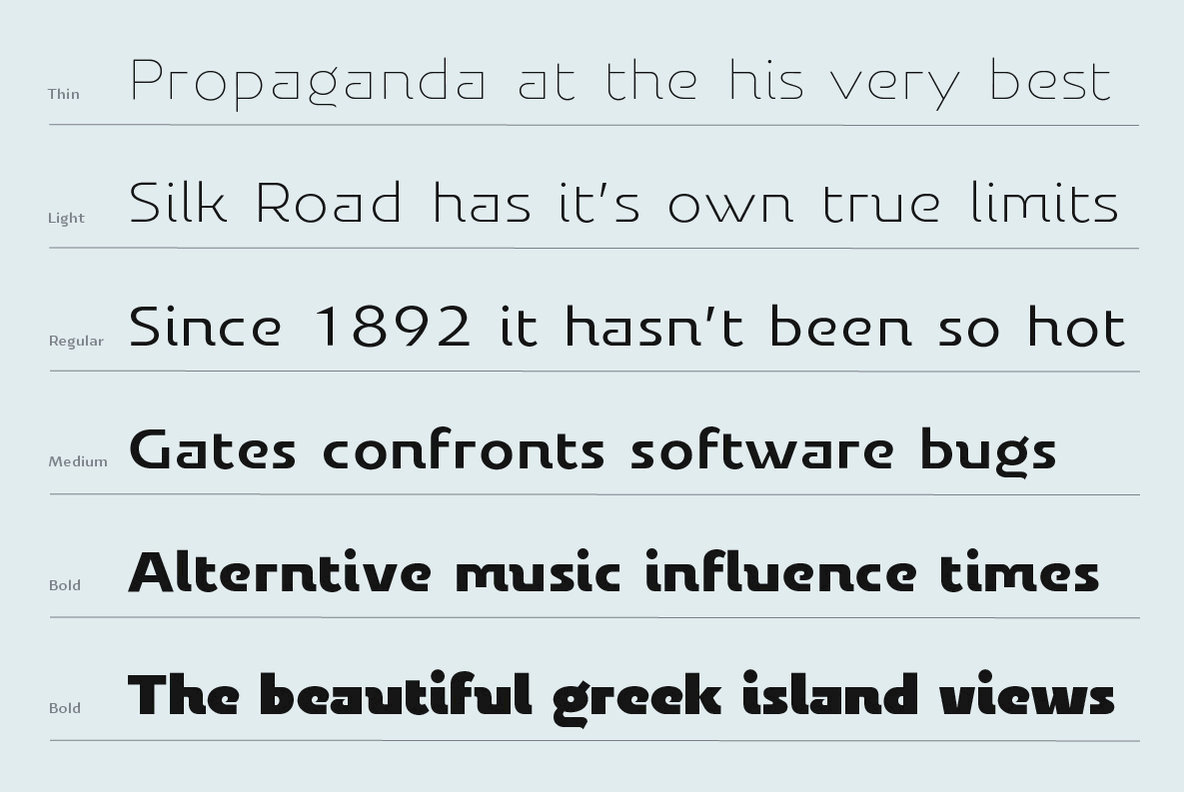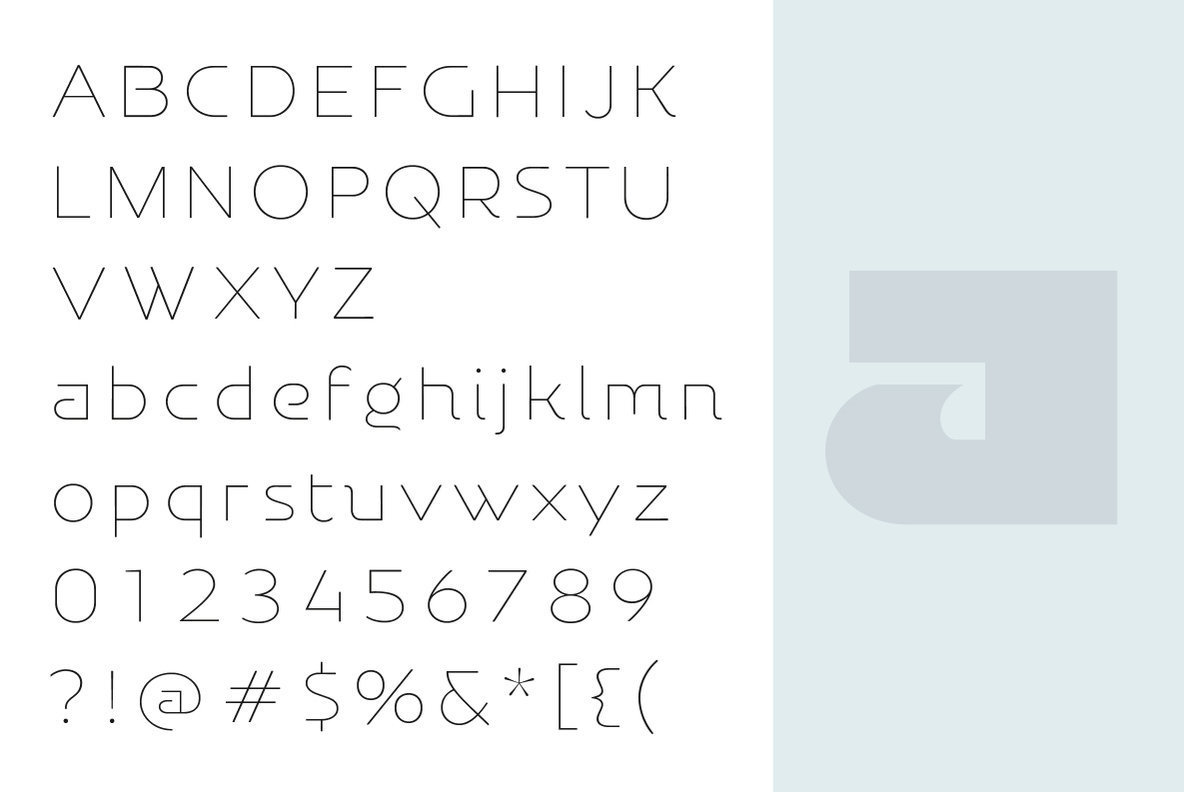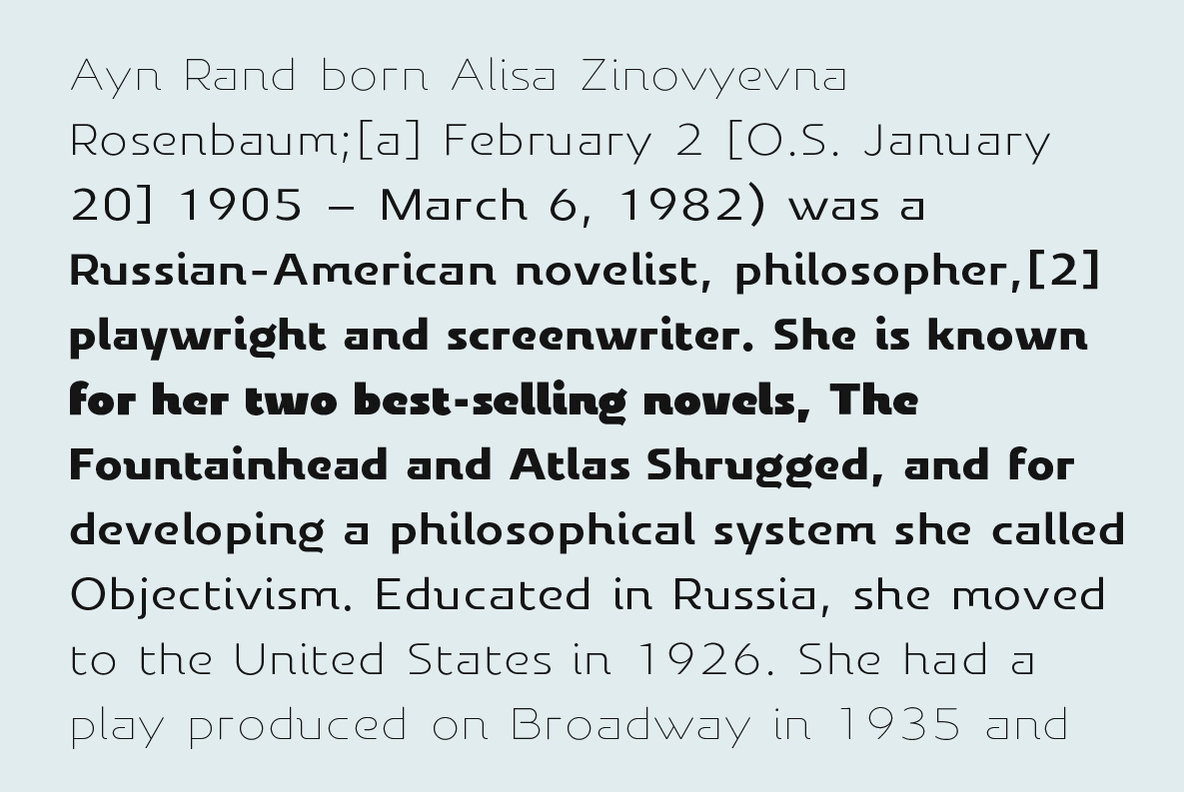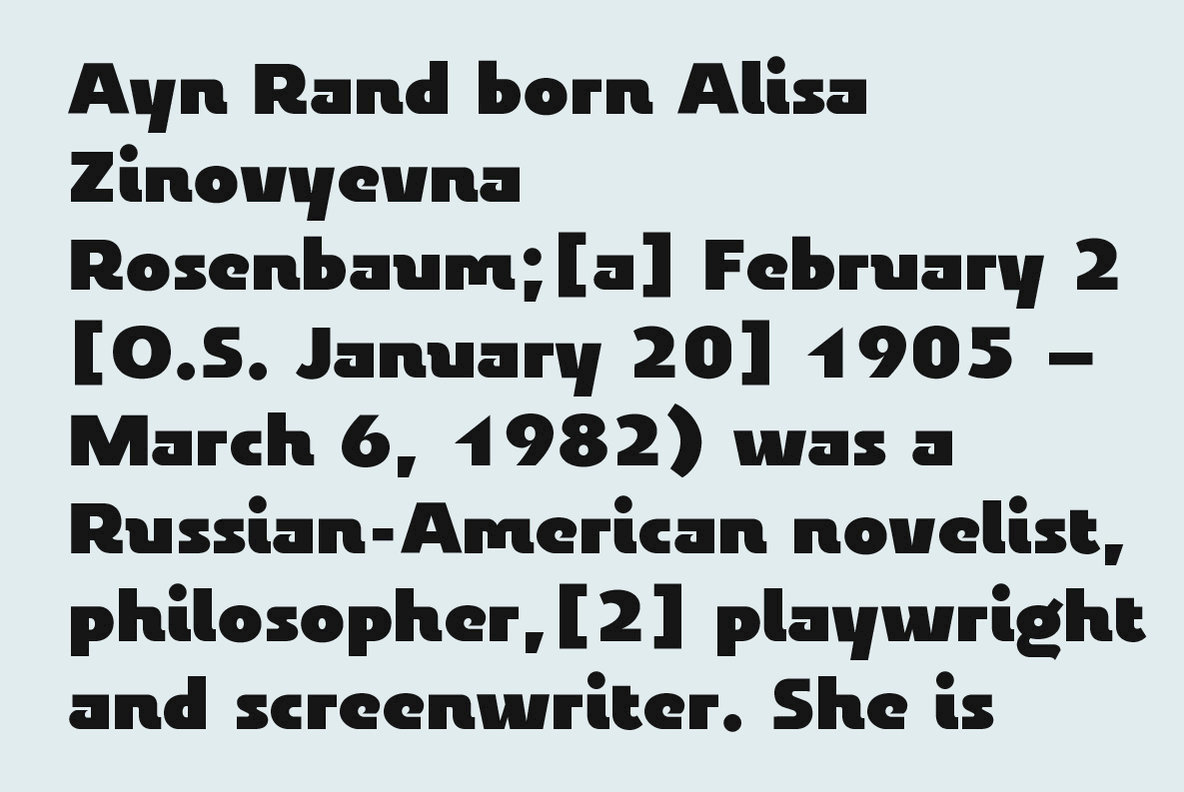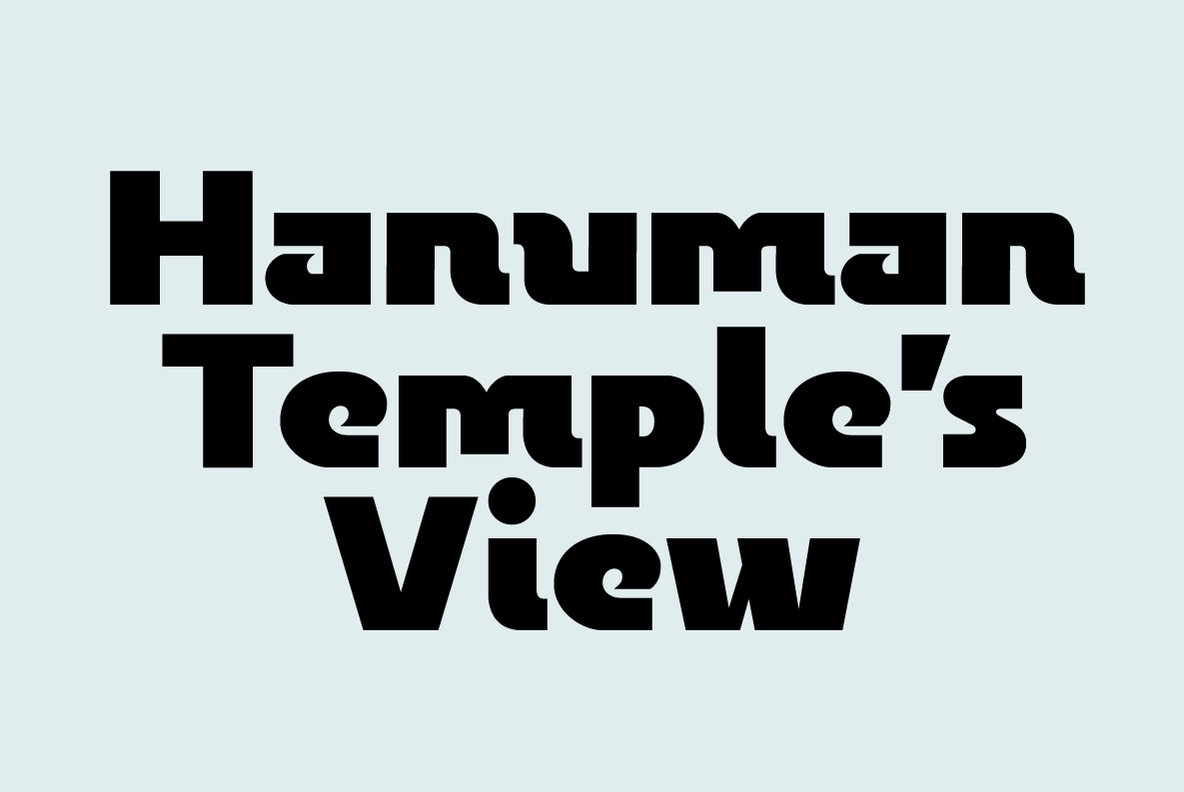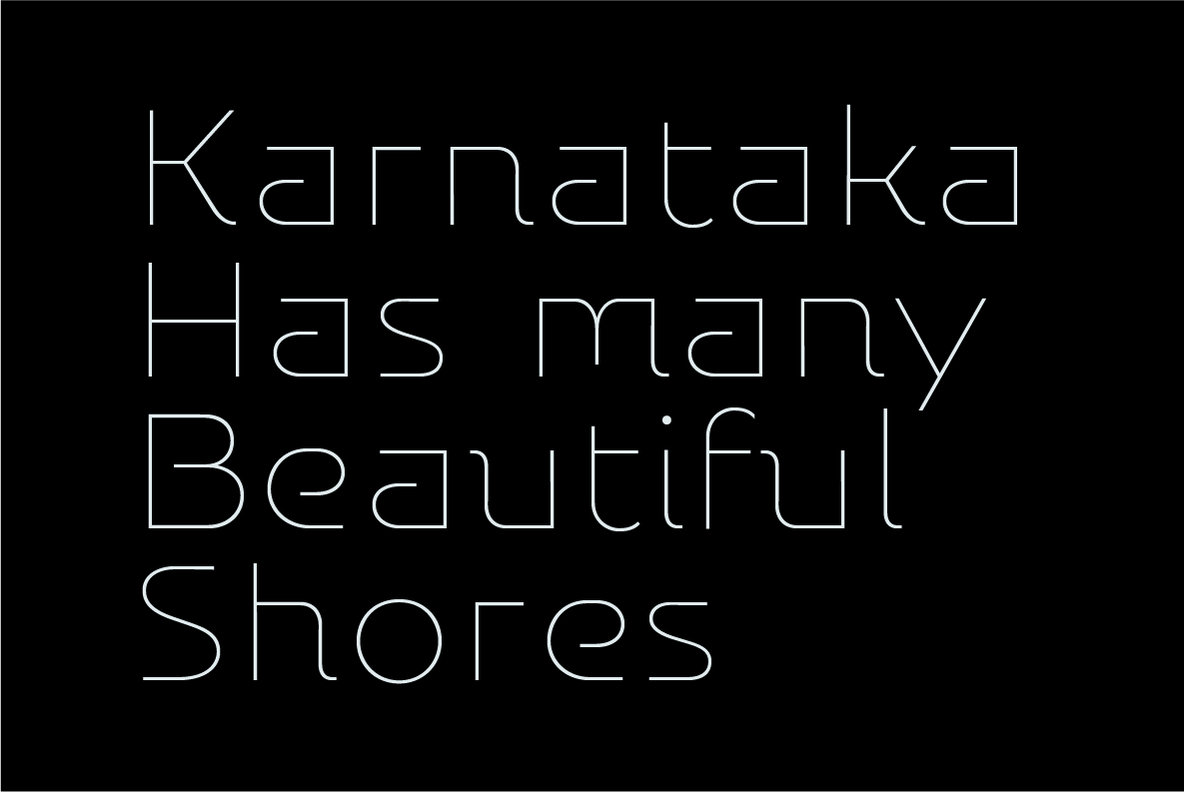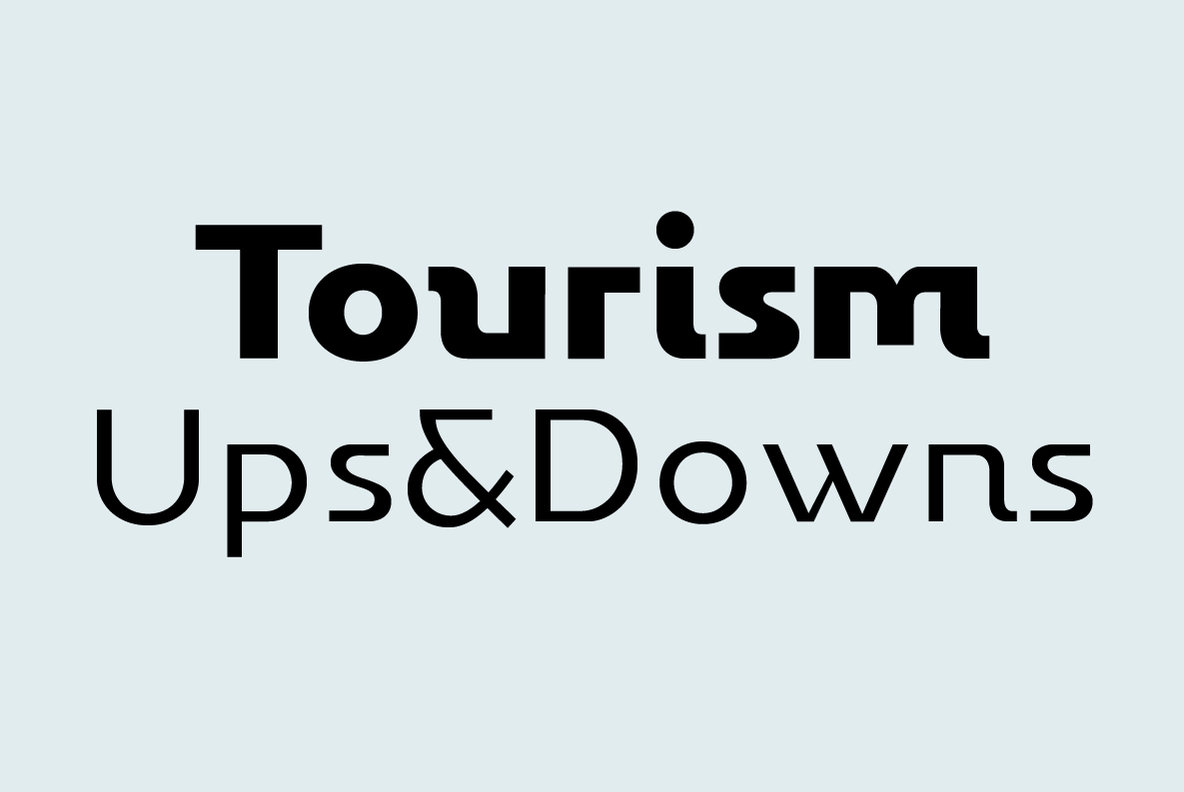
YE Agistri Font
YE Agistri is a decorative kind of typeface, although he has extrovert character, his simplicity gives him smooth quality, and widen his range of usability. YE Agistri will add color to everywhere you put him, without stealing the focus.